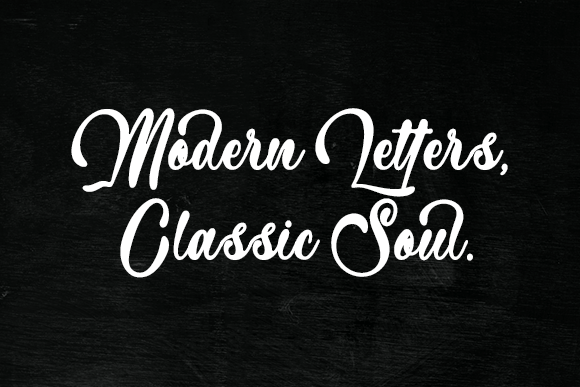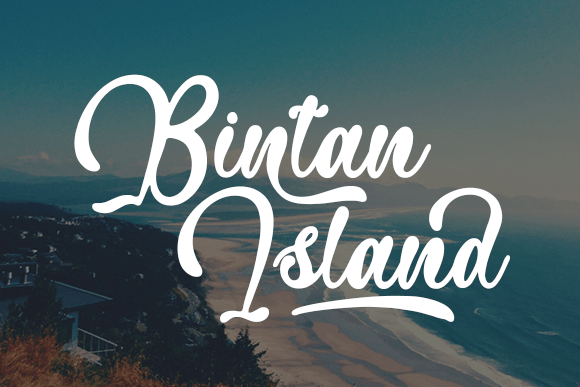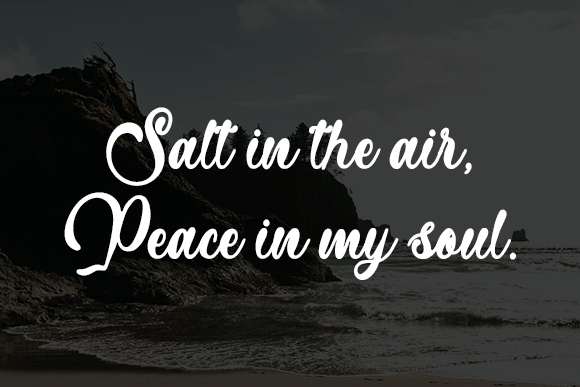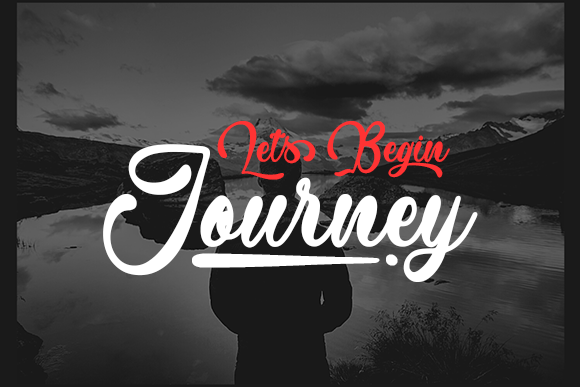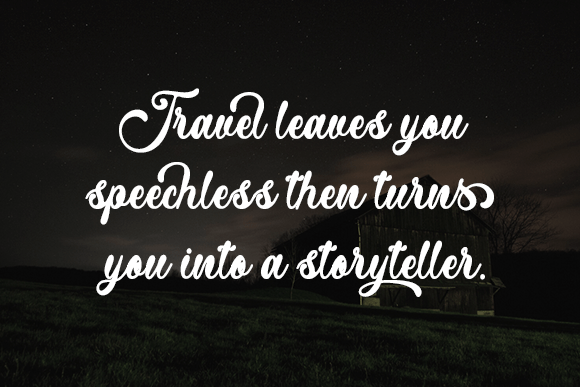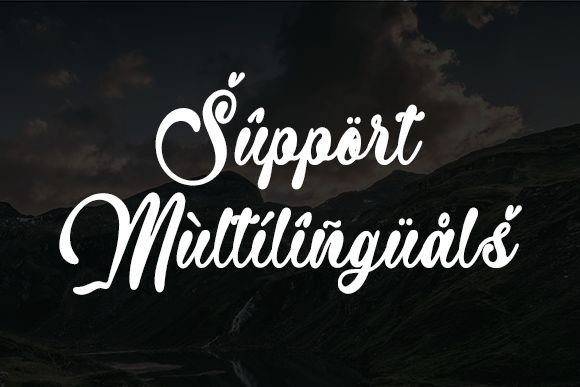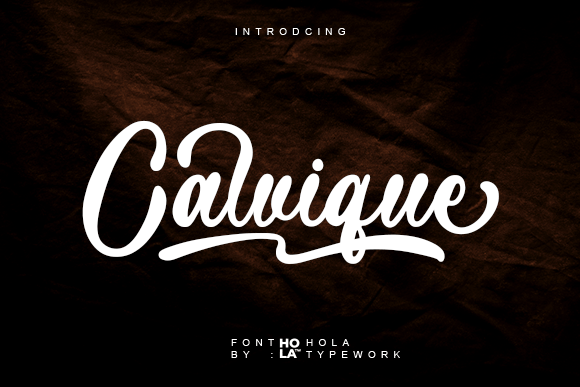
Introducing Calvique Font: The Perfect Blend of Elegance and Strength
In the world of typography, a font can make or break a design. For designers and crafters looking for a script font that exudes confidence, elegance, and a personal touch, Calvique is an excellent choice. This bold script font is designed to stand out with its smooth curves, confident strokes, and timeless handwritten feel.
The Characteristics of Calvique Font
Calvique combines the best of both worlds – elegance and strength. Its bold weight ensures excellent readability, making it perfect for eye-catching designs that need character and charm. The font’s clean yet expressive script style feels natural and premium, making it ideal for modern branding with a personal touch.
What Makes Calvique Unique?
Calvique’s unique features set it apart from other script fonts. Its smooth curves and confident strokes give it a timeless feel that works beautifully across a wide range of creative projects. Whether you’re working on logos and branding, packaging, apparel, social media, or editorial designs, Calvique is a versatile font that delivers.
Key Features of Calvique Font
- Bold Script Style: Calvique’s bold weight ensures excellent readability while maintaining a stylish flow.
- Smooth Curves and Confident Strokes: The font’s smooth curves and confident strokes give it a timeless handwritten feel.
- PUA Encoded: Calvique is PUA encoded, allowing effortless access to all glyphs, swashes, and alternate characters.
- Clean yet Expressive Script Style: The font’s clean yet expressive script style feels natural and premium.
- Multipurpose: Calvique works beautifully across a wide range of creative projects, from logos and branding to packaging, apparel, social media, and editorial designs.
Why Choose Calvique Font?
For designers and crafters looking for a font that delivers a personal touch, Calvique is an excellent choice. Its unique blend of elegance and strength makes it perfect for modern branding. The font’s excellent readability and stylish flow ensure that your designs will stand out.
How to Use Calvique Font
Calvique is easy to use and works seamlessly with design software. Here are a few tips on how to get the most out of Calvique:
- Pair it with Other Fonts: Calvique works well with other fonts, so feel free to experiment with different combinations.
- Use it for Headings and Titles: The font’s bold weight makes it perfect for headings and titles.
- Experiment with Swashes and Alternate Characters: Calvique’s PUA encoding allows you to access a range of swashes and alternate characters, giving you creative freedom.
In conclusion, Calvique is a versatile and stylish script font that delivers a perfect blend of elegance and strength. Its smooth curves, confident strokes, and timeless handwritten feel make it perfect for modern branding with a personal touch. With its excellent readability, stylish flow, and multipurpose design, Calvique is a must-have font for designers and crafters.